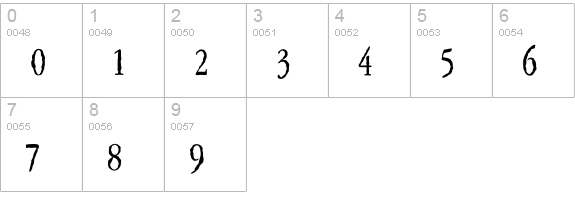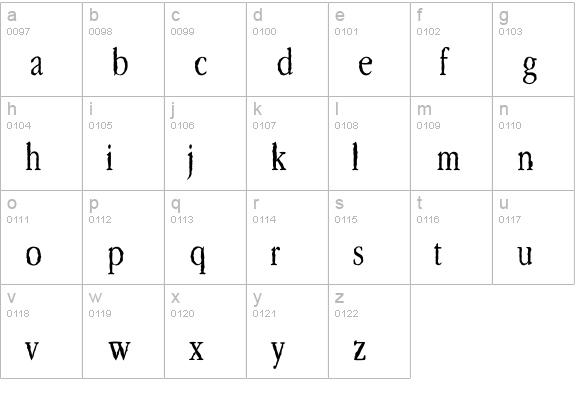
Lefferts Corners 2 Font Details
Lefferts Corners 2 font is a stunning display typeface that exudes elegance and sophistication. With its unique combination of sharp edges and delicate curves, this font is sure to make a bold statement in any design project. Designed with meticulous attention to detail, Lefferts Corners 2 font is perfect for creating eye-catching headlines, logos, and branding materials. Its versatile nature allows it to be used in a variety of creative applications, from advertising and packaging to invitations and web design. This font offers a wide range of uppercase and lowercase letters, numbers, and punctuation marks, giving you the freedom to create captivating typography that stands out from the crowd. Its clean and legible design ensures readability even at smaller sizes, making it suitable for both print and digital projects. And the best part? Lefferts Corners 2 font is available for free! You can easily download this amazing font at FontsMarket.com, where you will find an extensive collection of high-quality fonts for all your design needs. Don't miss out on the opportunity to add this elegant and versatile typeface to your font library. Download Lefferts Corners 2 font today and let your creativity soar.